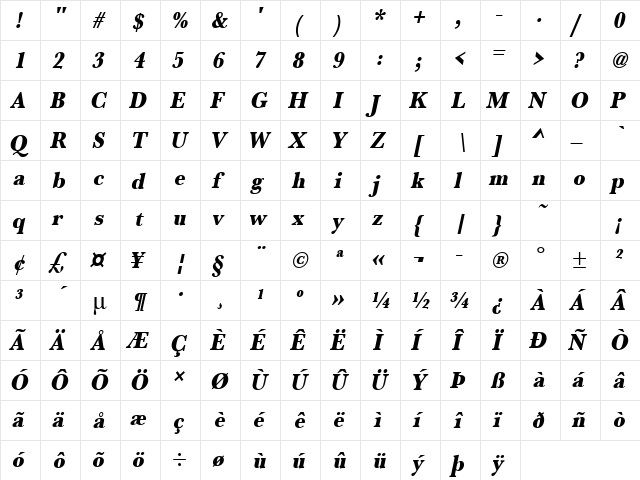
URWBaskerTExtBolExtNar Oblique
URWBaskerTExtBolExtNar takes a measured approach to typography — its balanced proportions and neutral character make it a reliable workhorse for both digital and print work. The dynamic lean of this cut emphasises speed and emphasis in any layout.